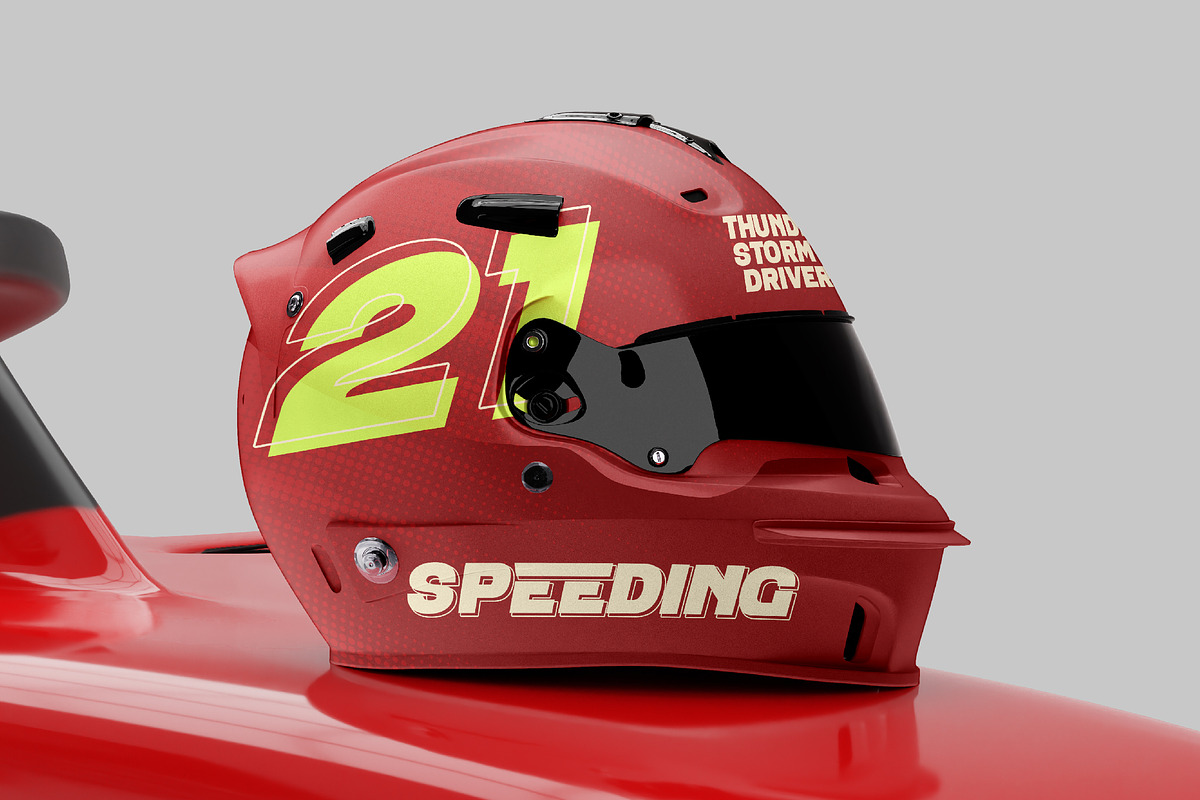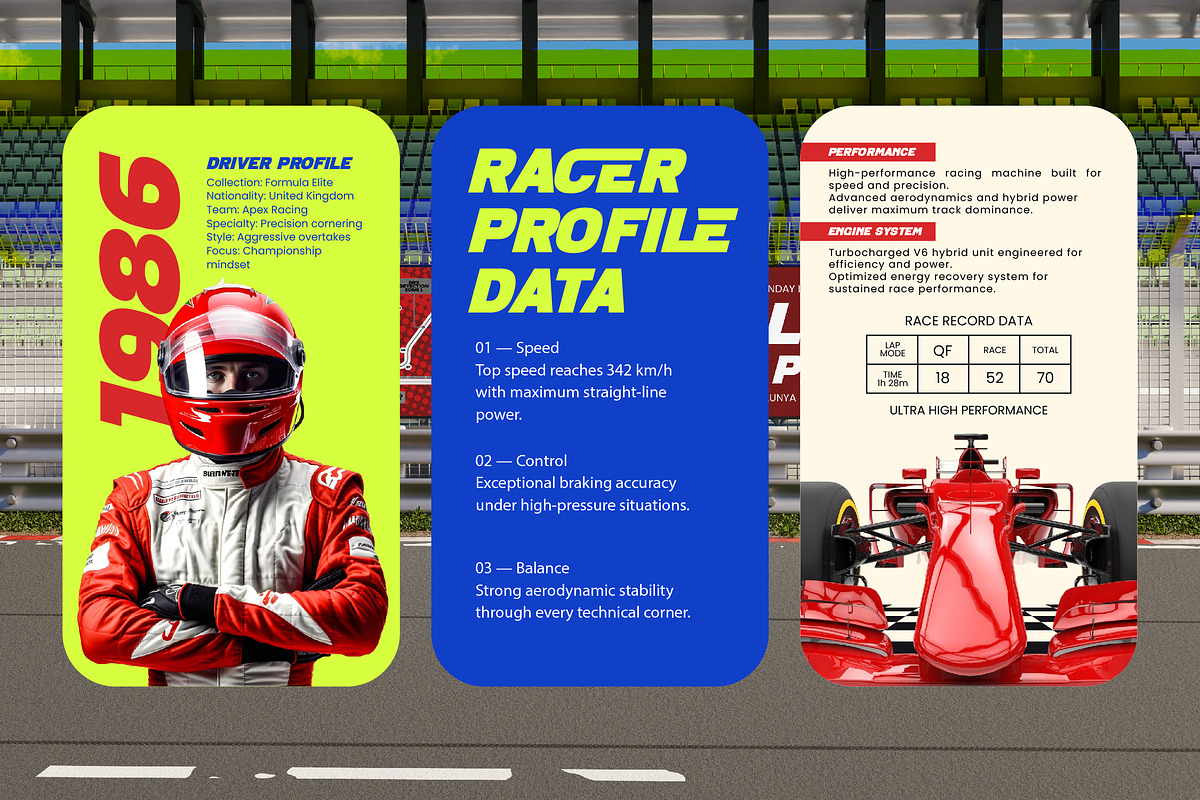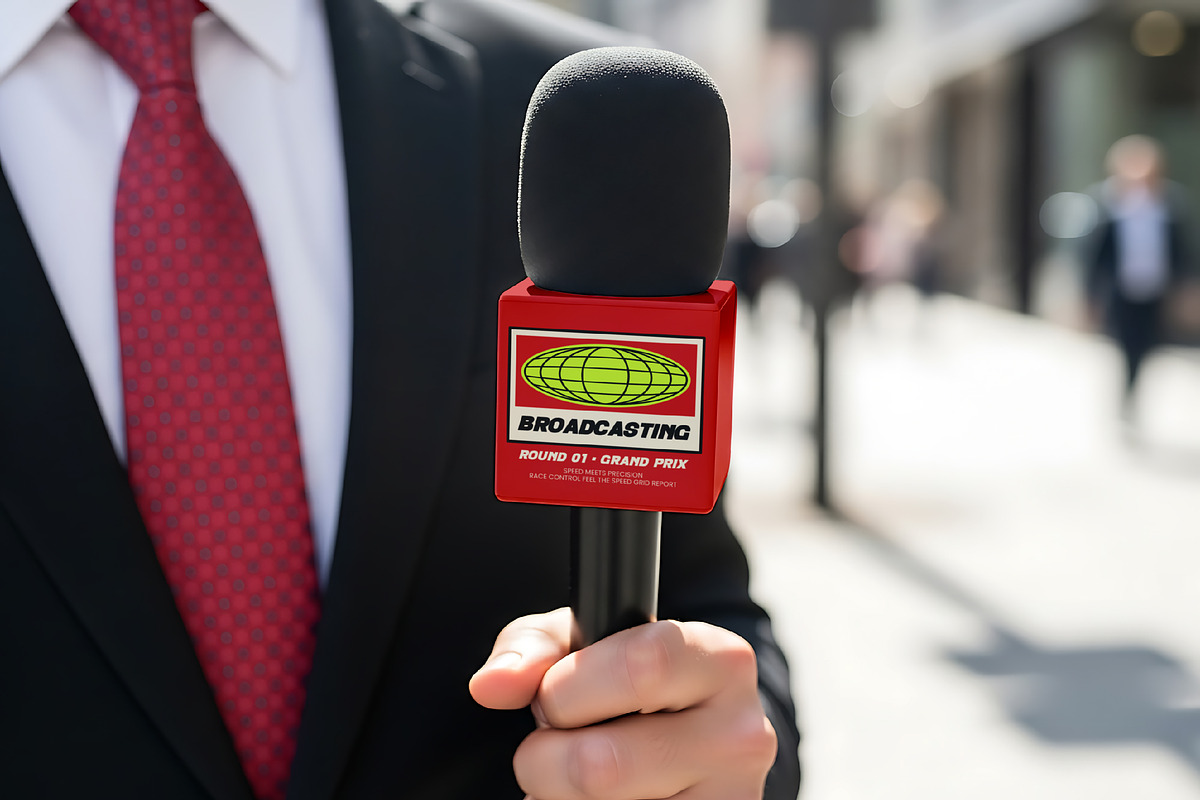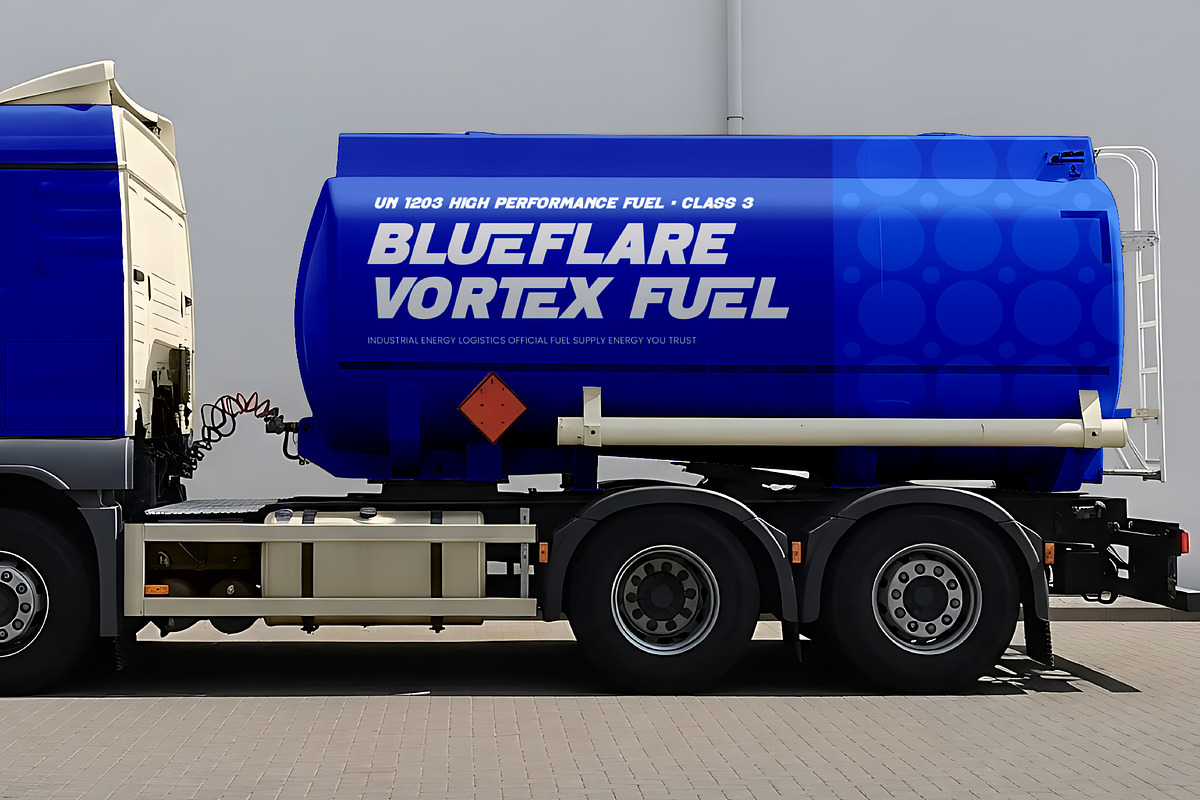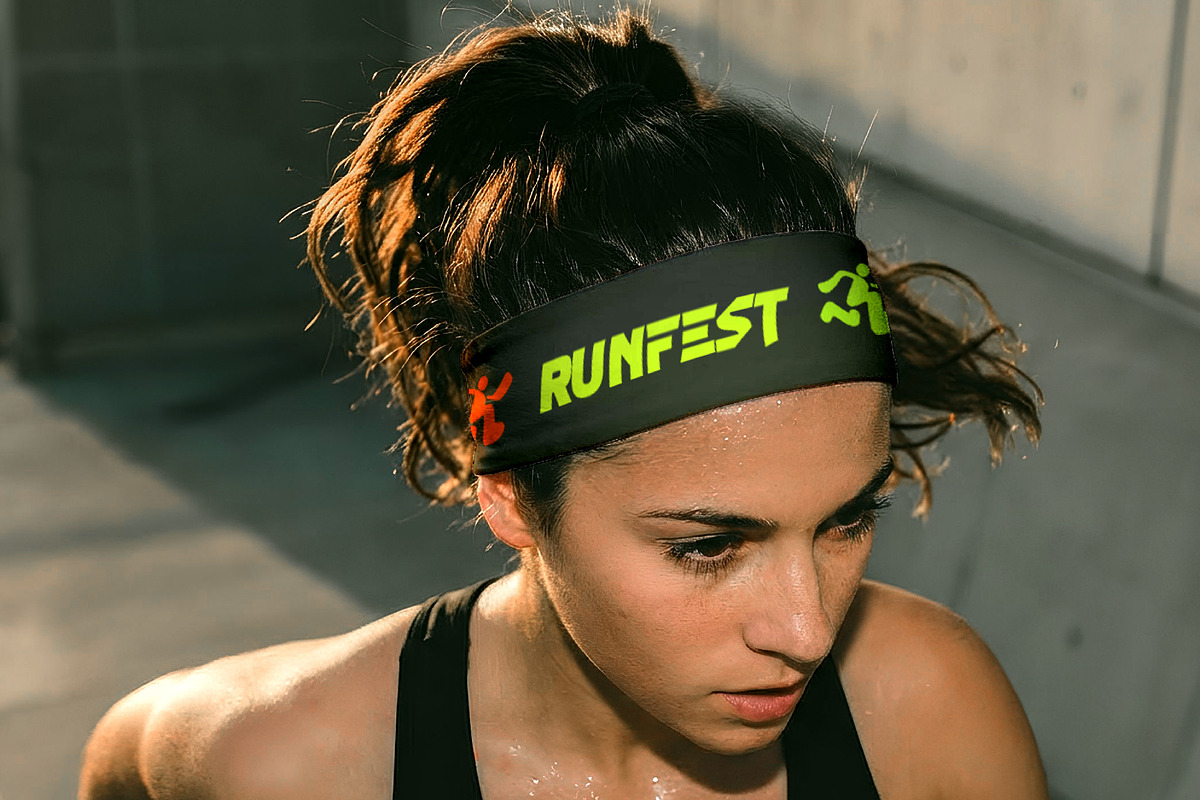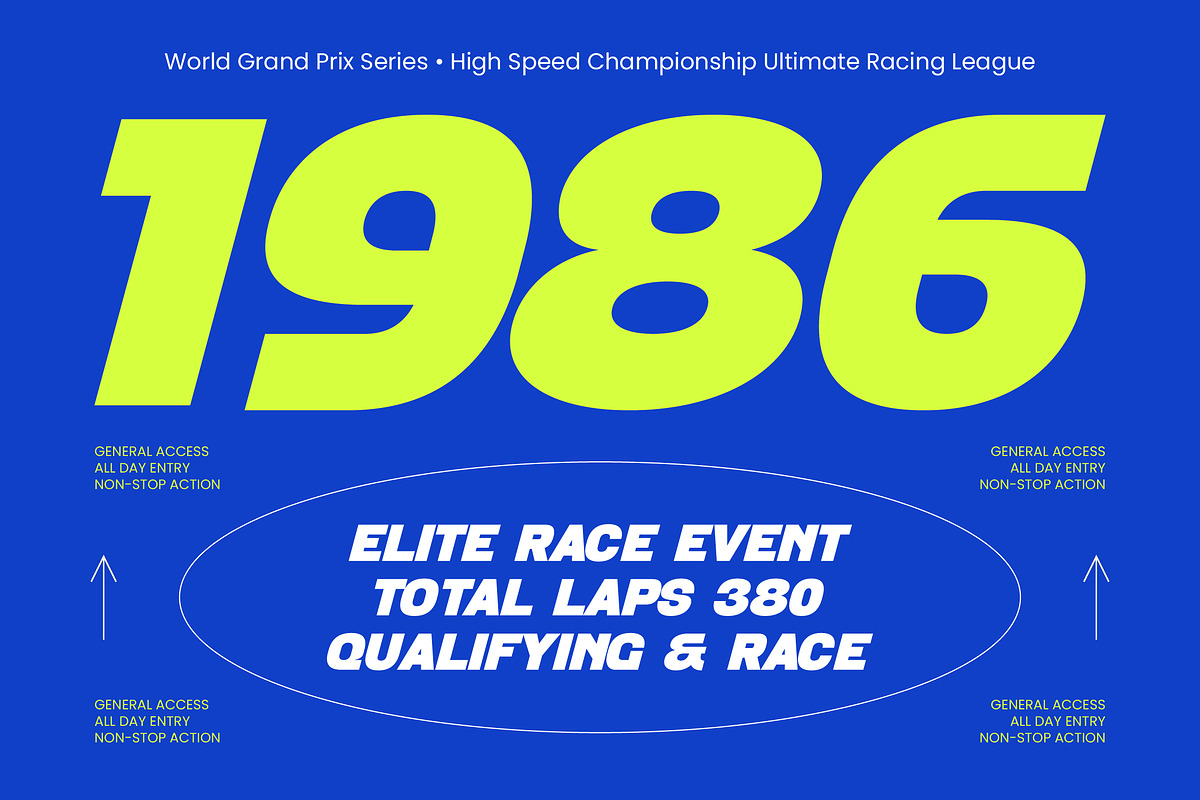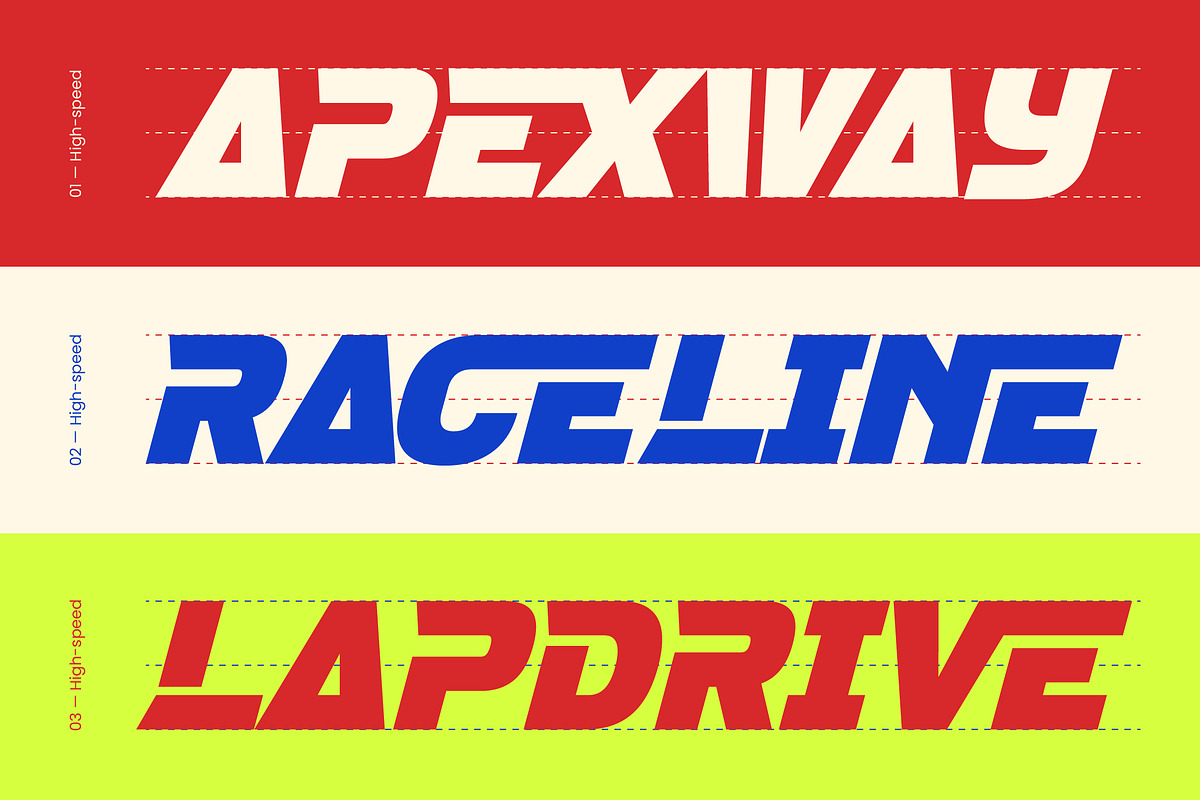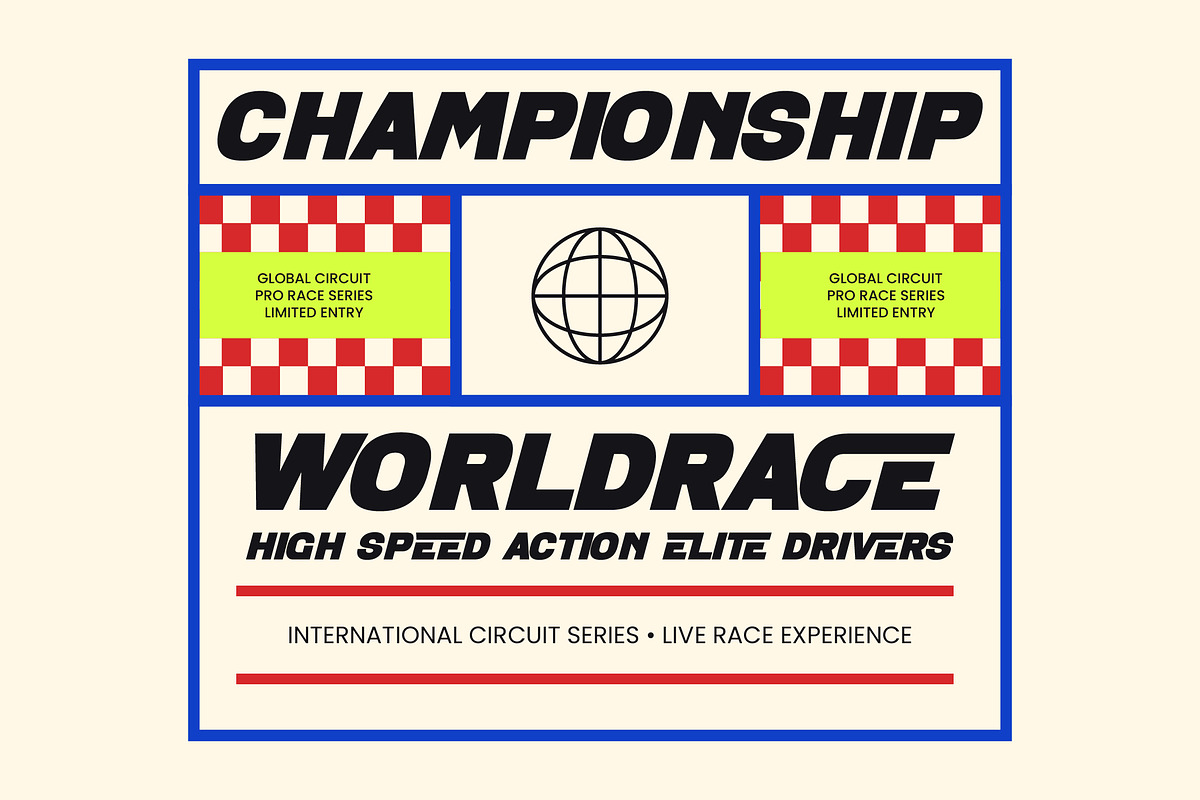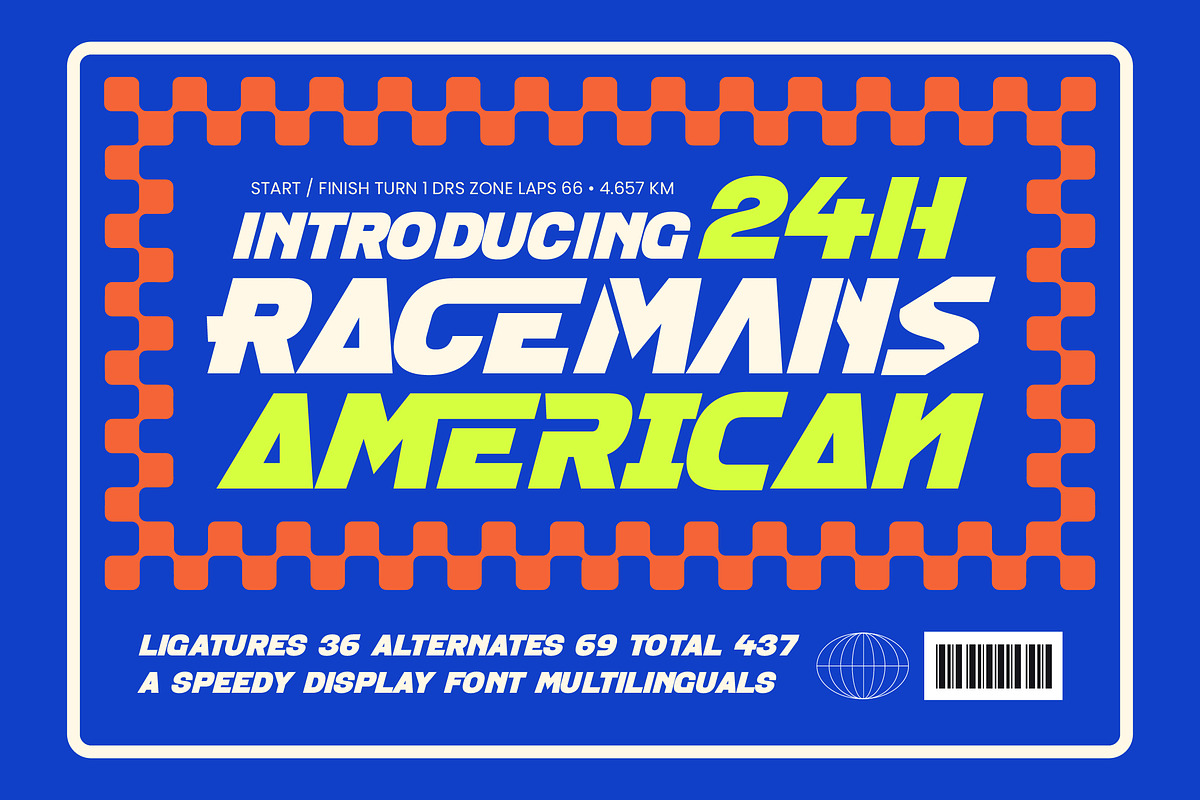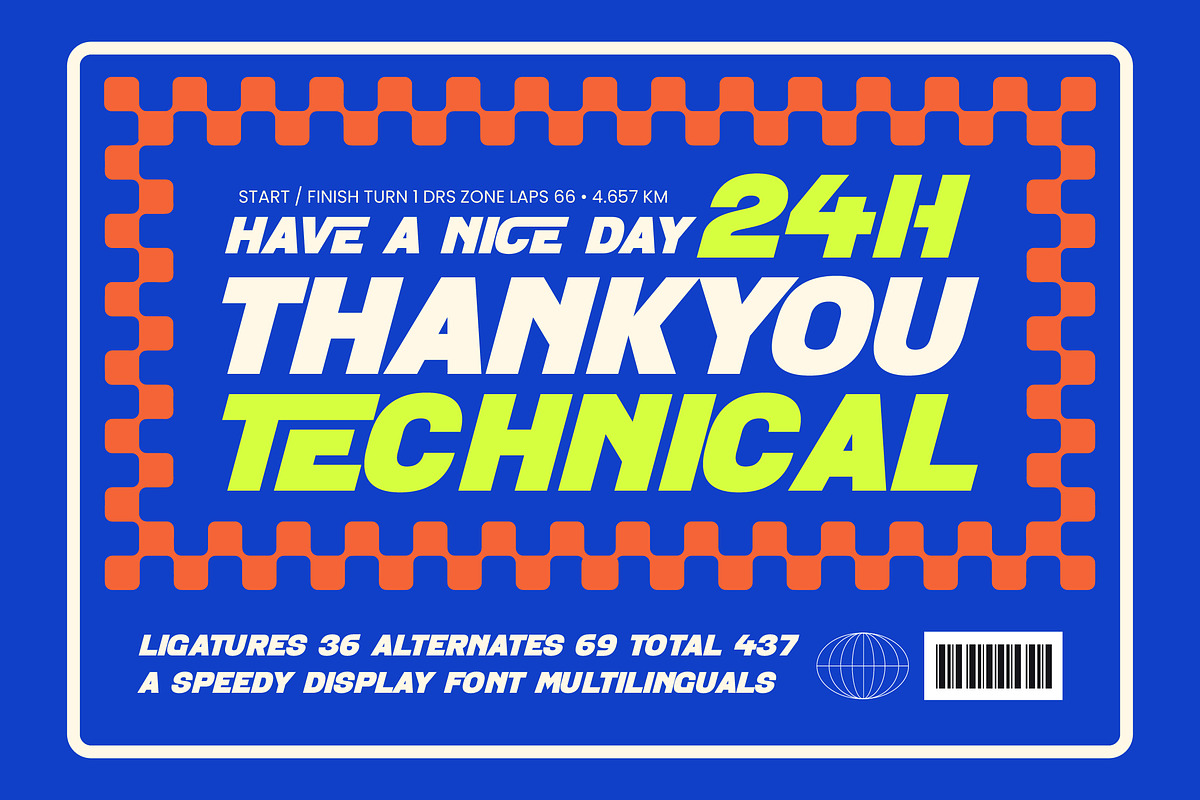
Racemans American Speedy Display
Racemans American – Speedy Display Font , Accelerate your creative impact with a typeface engineered for pure momentum and power. Racemans American – Speedy Display Font is a high-octane display face designed to capture the essence of velocity through its aggressive slant and heavyweight proportions. This premium display font delivers an immediate sense of urgency and competition, making it the definitive choice for projects that demand a bold visual presence. By blending modern industrial aesthetics with a classic racing spirit, it provides a unique typographic voice that stands out in any high-energy environment.
Engineered for professional performance, this typeface offers unparalleled technical flexibility for the modern global designer. With its extensive multilingual support, Racemans American – Speedy Display Font adapts seamlessly across global markets, making it incredibly versatile for international projects. Boasting a comprehensive set of 437 total glyphs, including 36 ligatures and 69 alternates, this font allows for a highly customized typographic experience. Such technical depth ensures that your messaging remains consistent and powerful regardless of the linguistic or regional context.
Command attention on every platform with a high-performance design that balances technical precision with raw, unfiltered power. Racemans American – Speedy Display Font features sharp terminals and geometric construction that maintain clarity even at high speeds and large scales. Its high-contrast style is optimized for maximum readability in digital displays and large-format print. This versatile toolkit empowers creators to push the boundaries of contemporary graphic design while maintaining a professional and cohesive brand image.
Transform your brand identity into a symbol of innovation and speed across a variety of commercial sectors. Racemans American – Speedy Display Font is the perfect solution for luxury sports branding, automotive packaging, and dynamic editorial layouts. It is also exceptionally well-suited for high-impact advertising, streetwear apparel design, and esports identity systems. Whether you are crafting a modern racing aesthetic or looking to energize a commercial marketing campaign, this font provides the competitive edge necessary to dominate the marketplace.
Numerals
Punctuations (OpenType Standard)
Accents (Multilingual Characters)
Ligatures and Alternative Style Stylistic Set